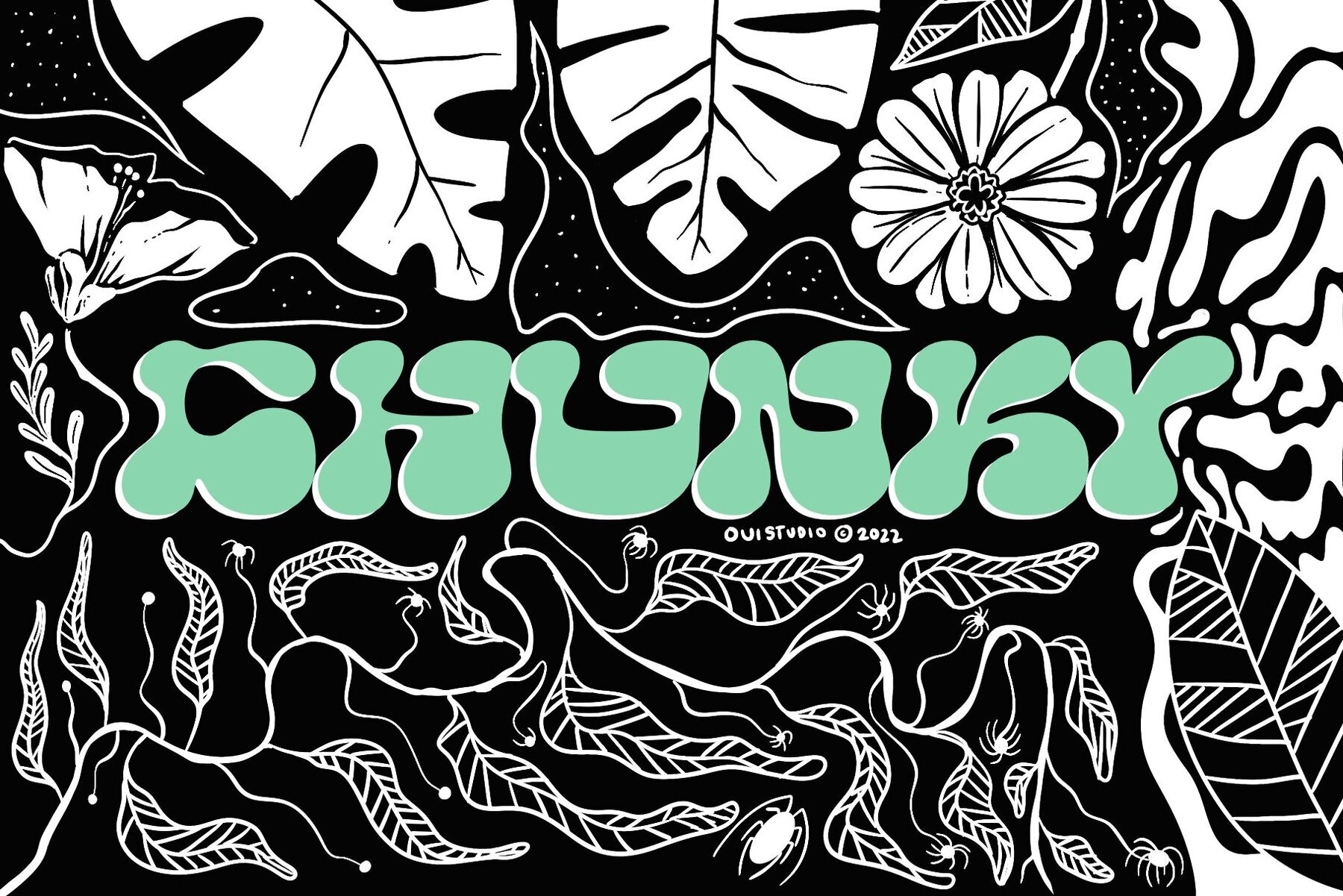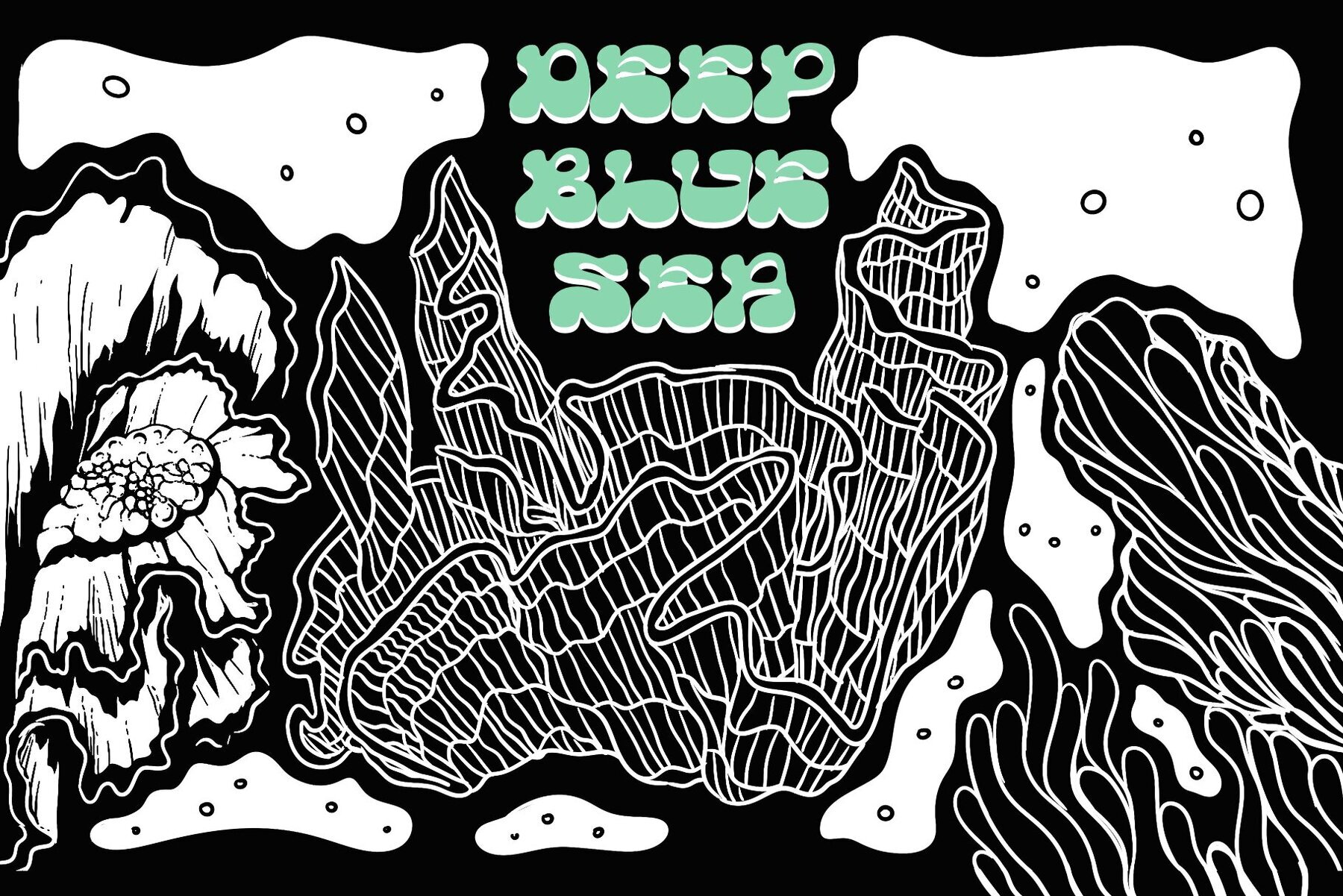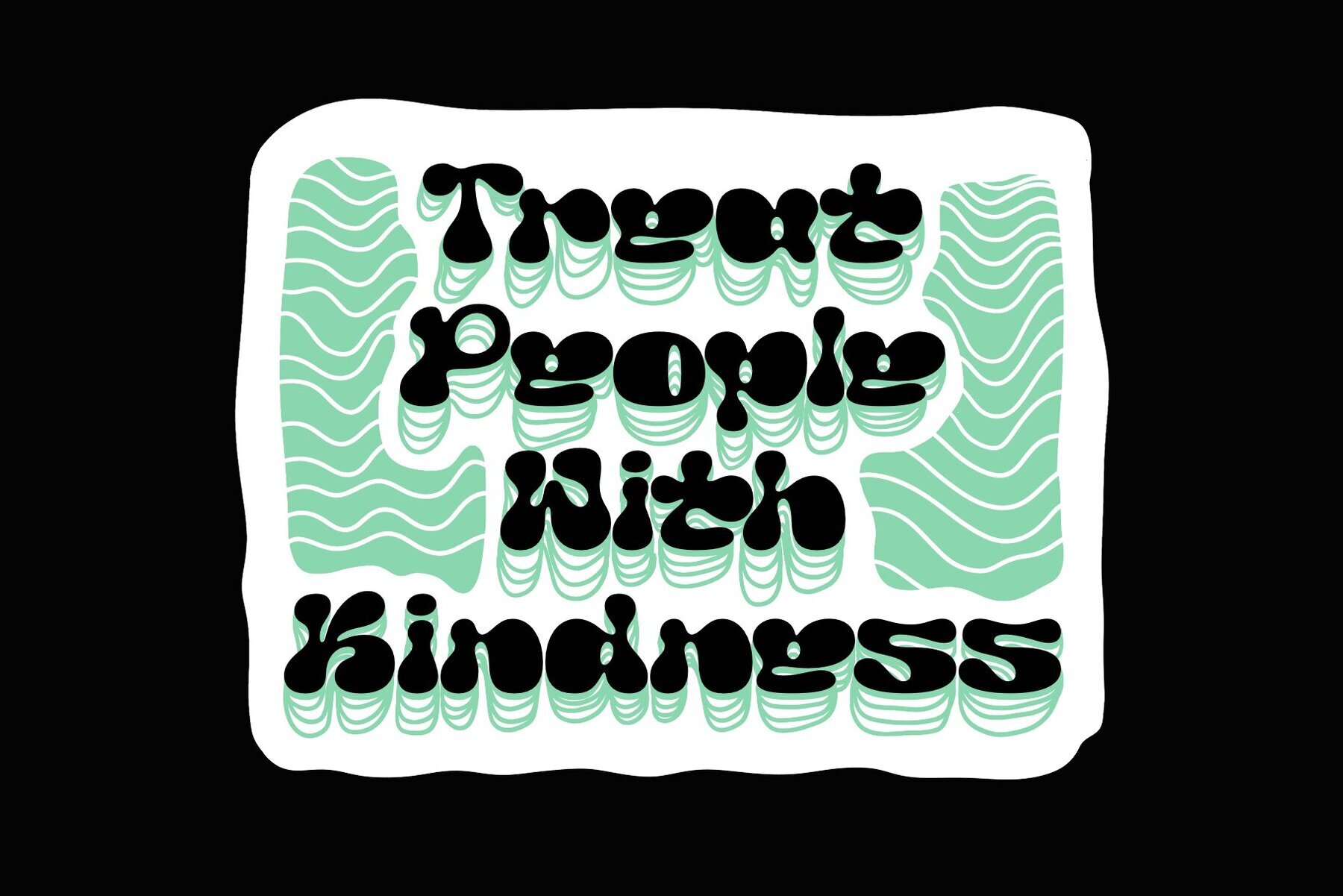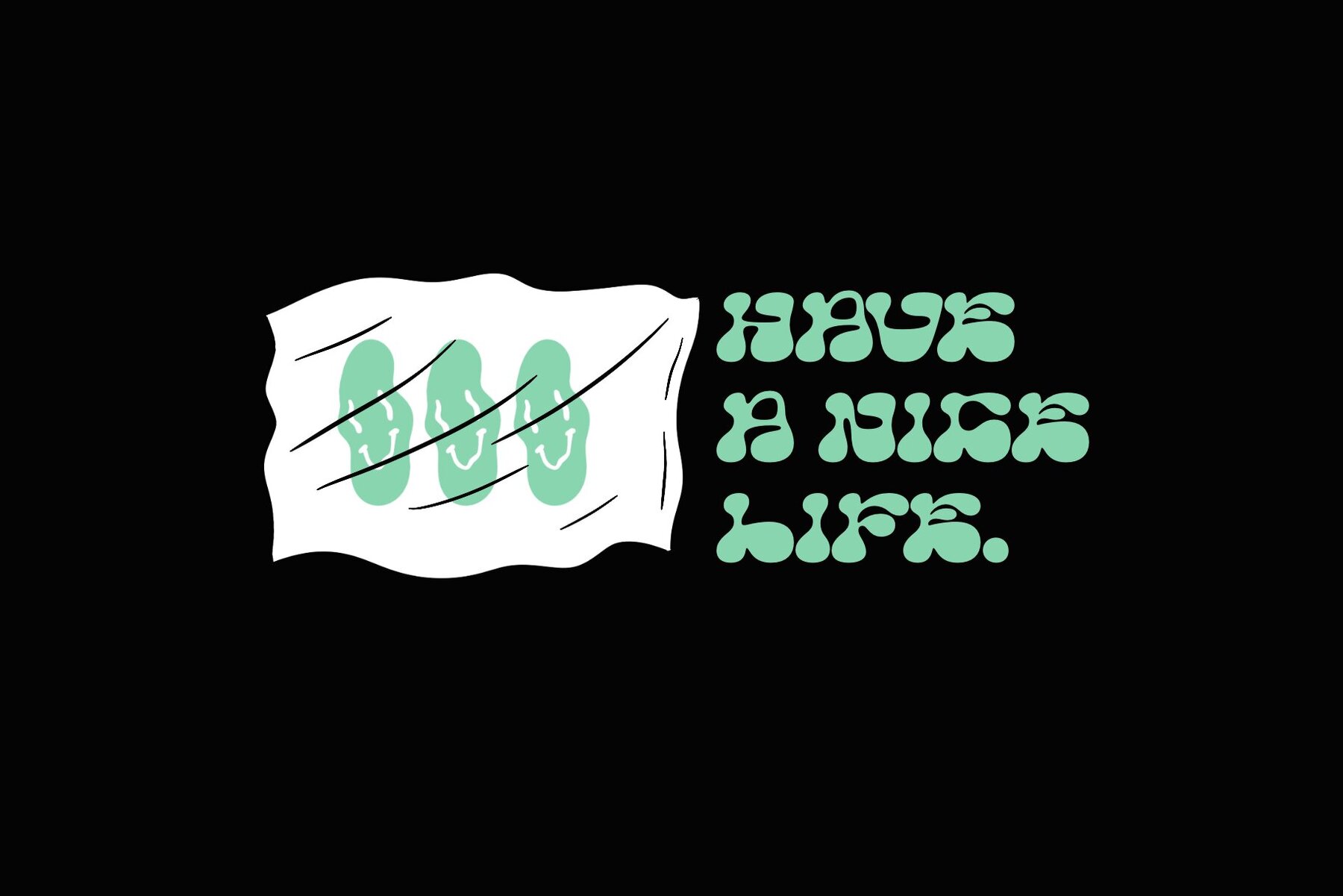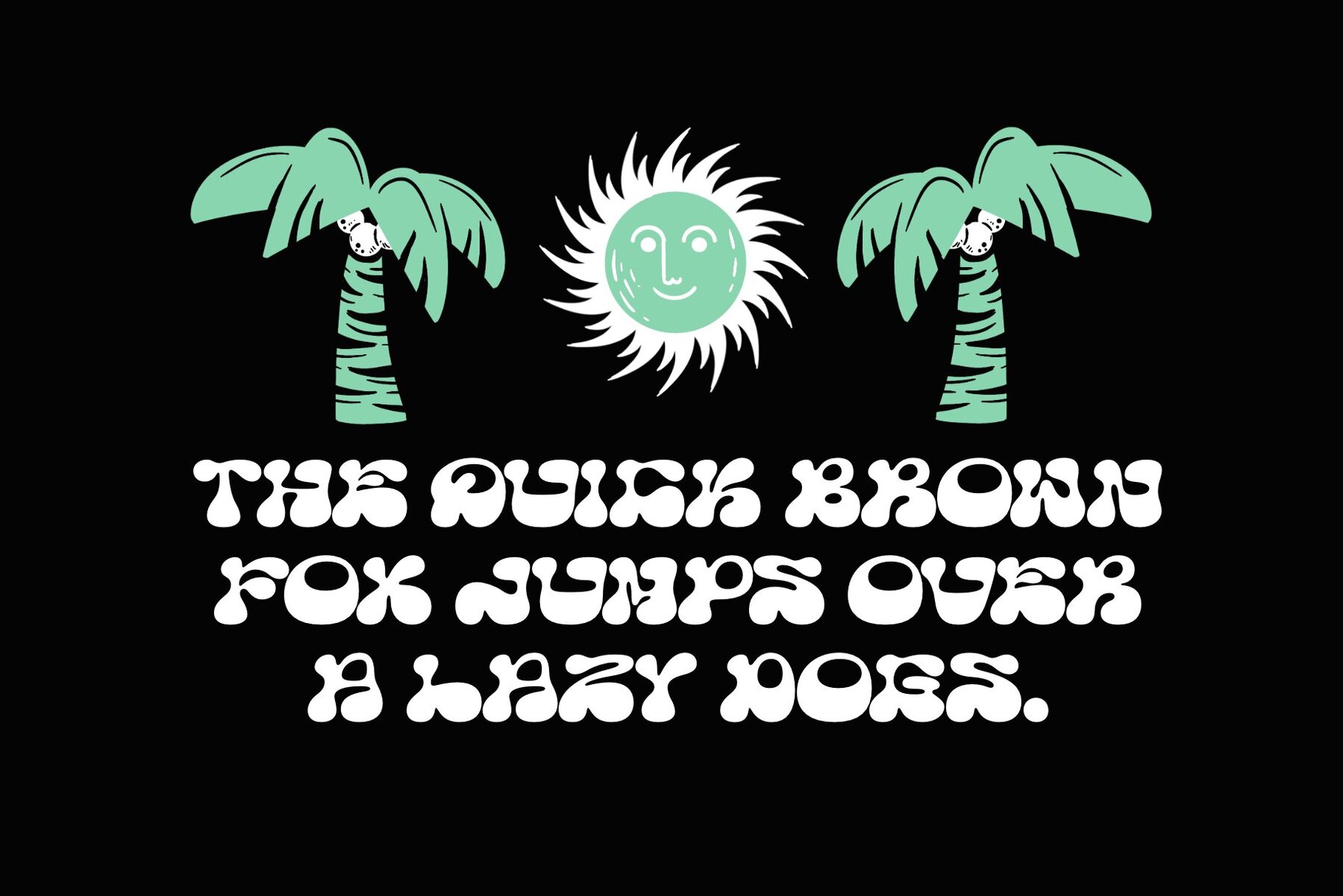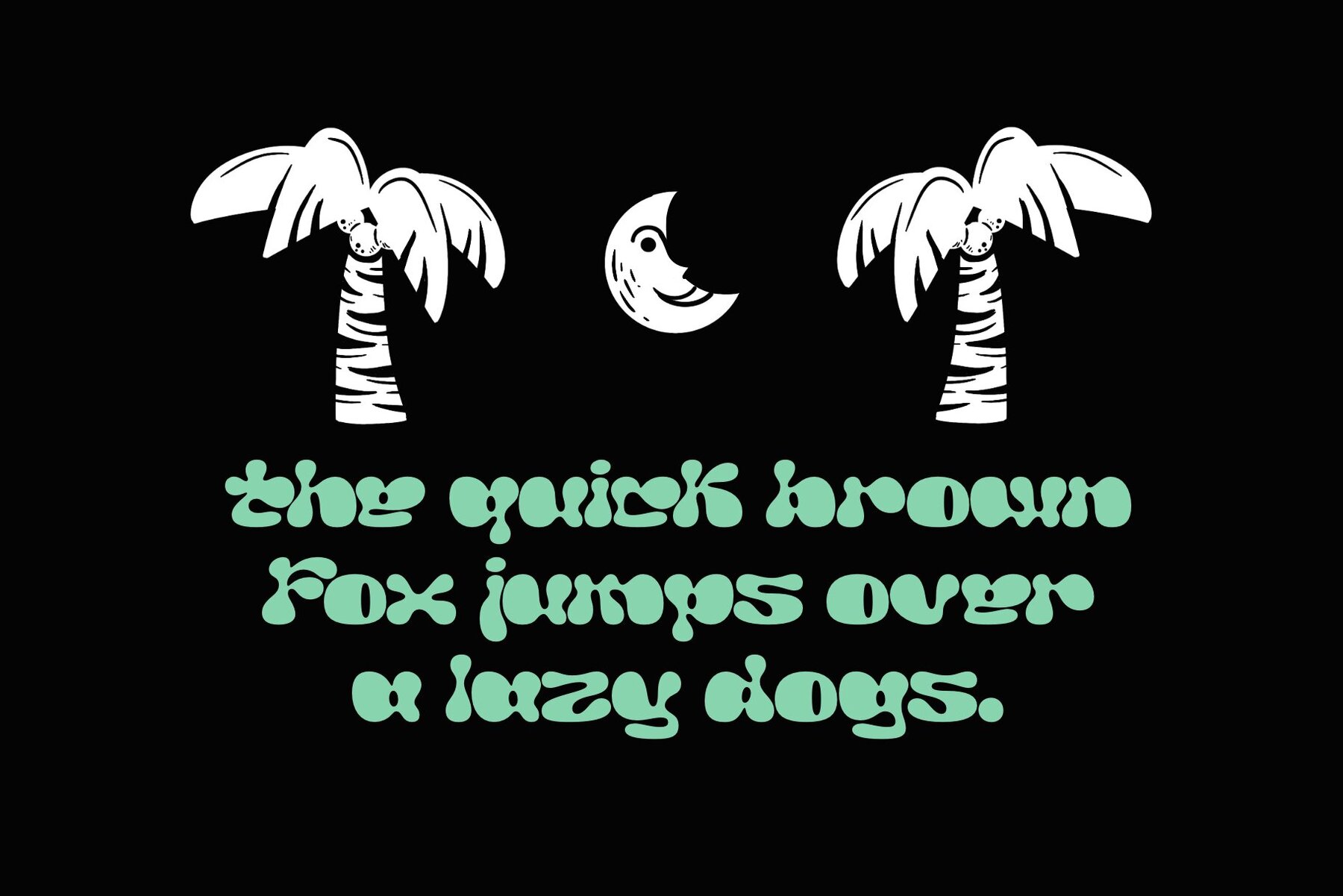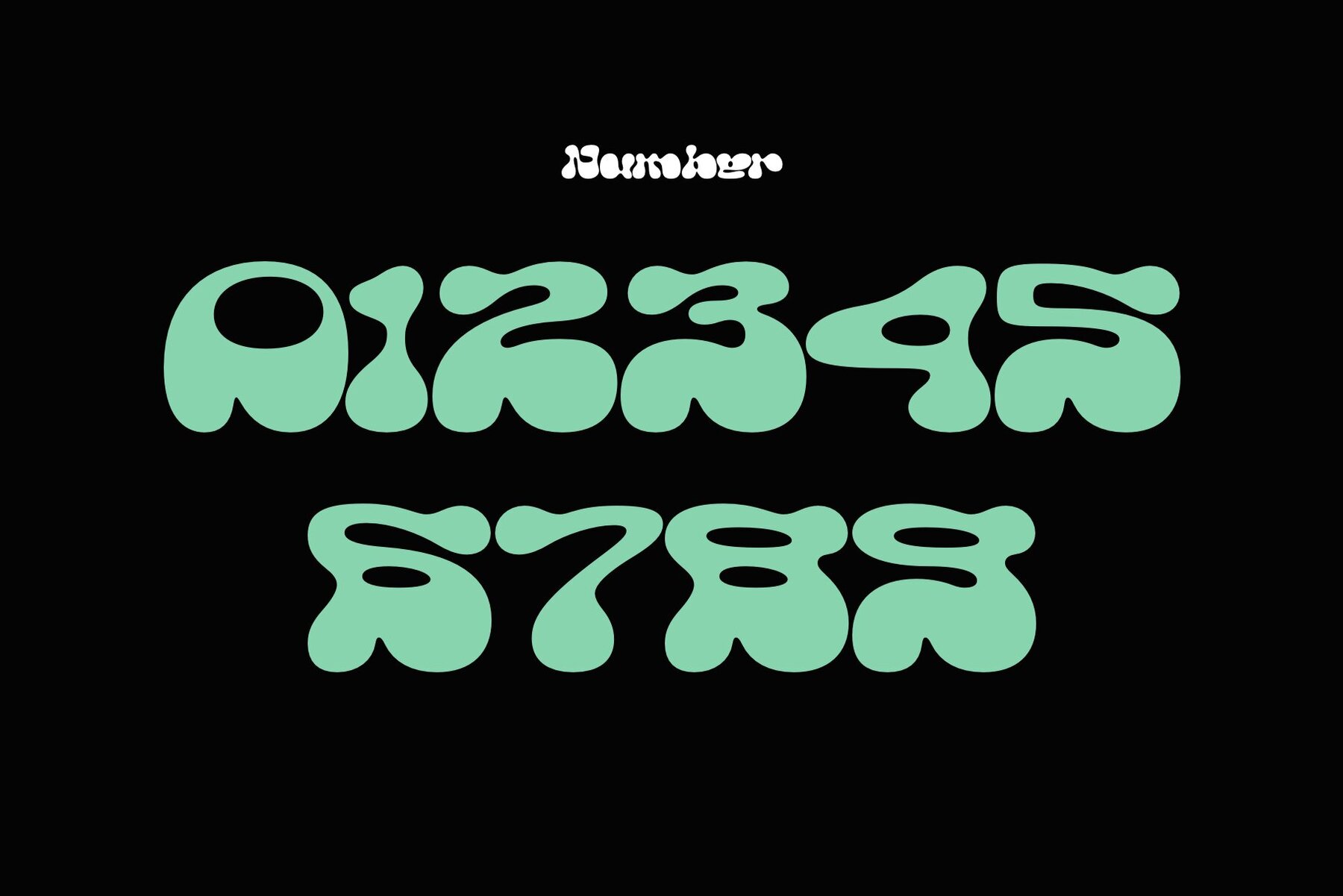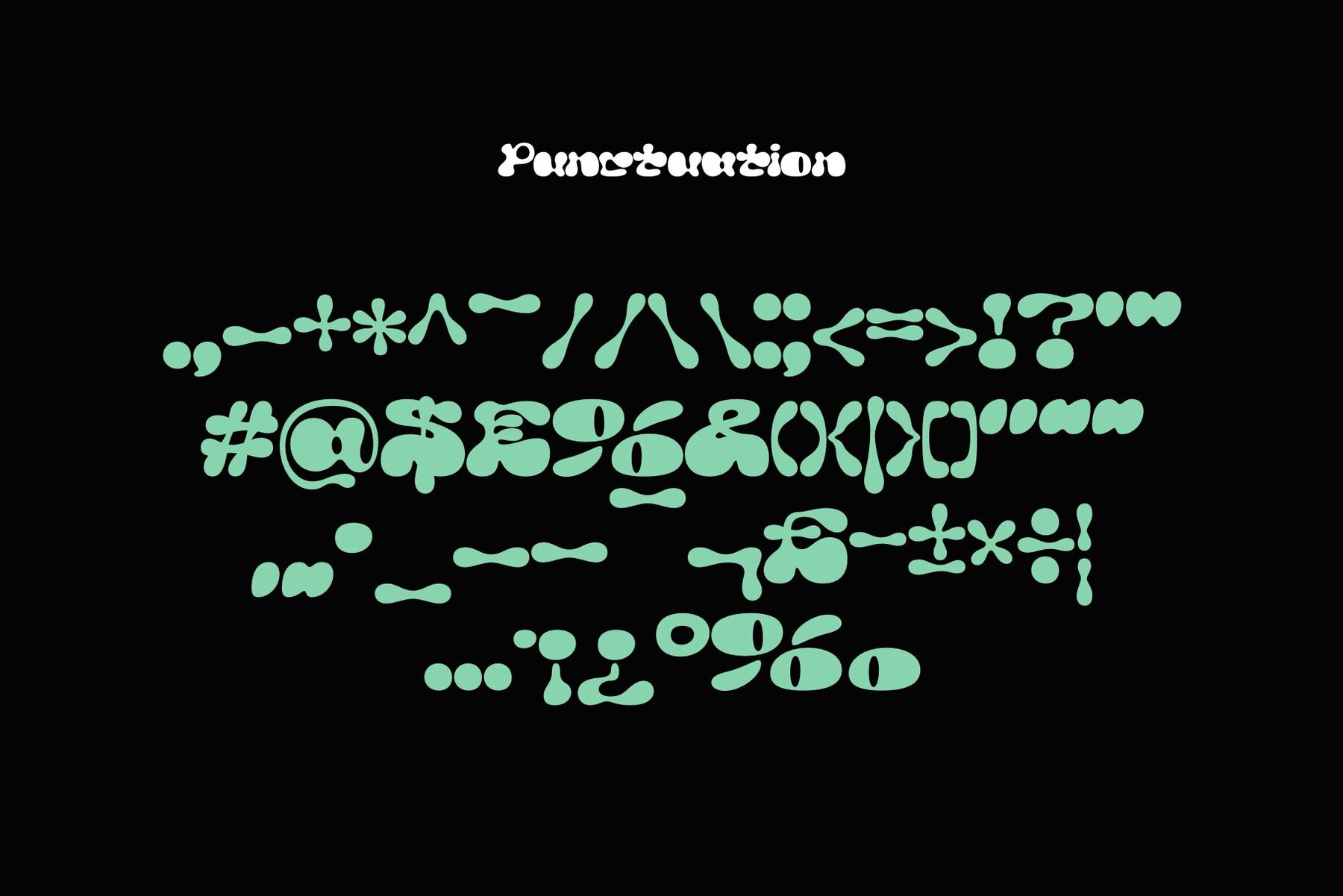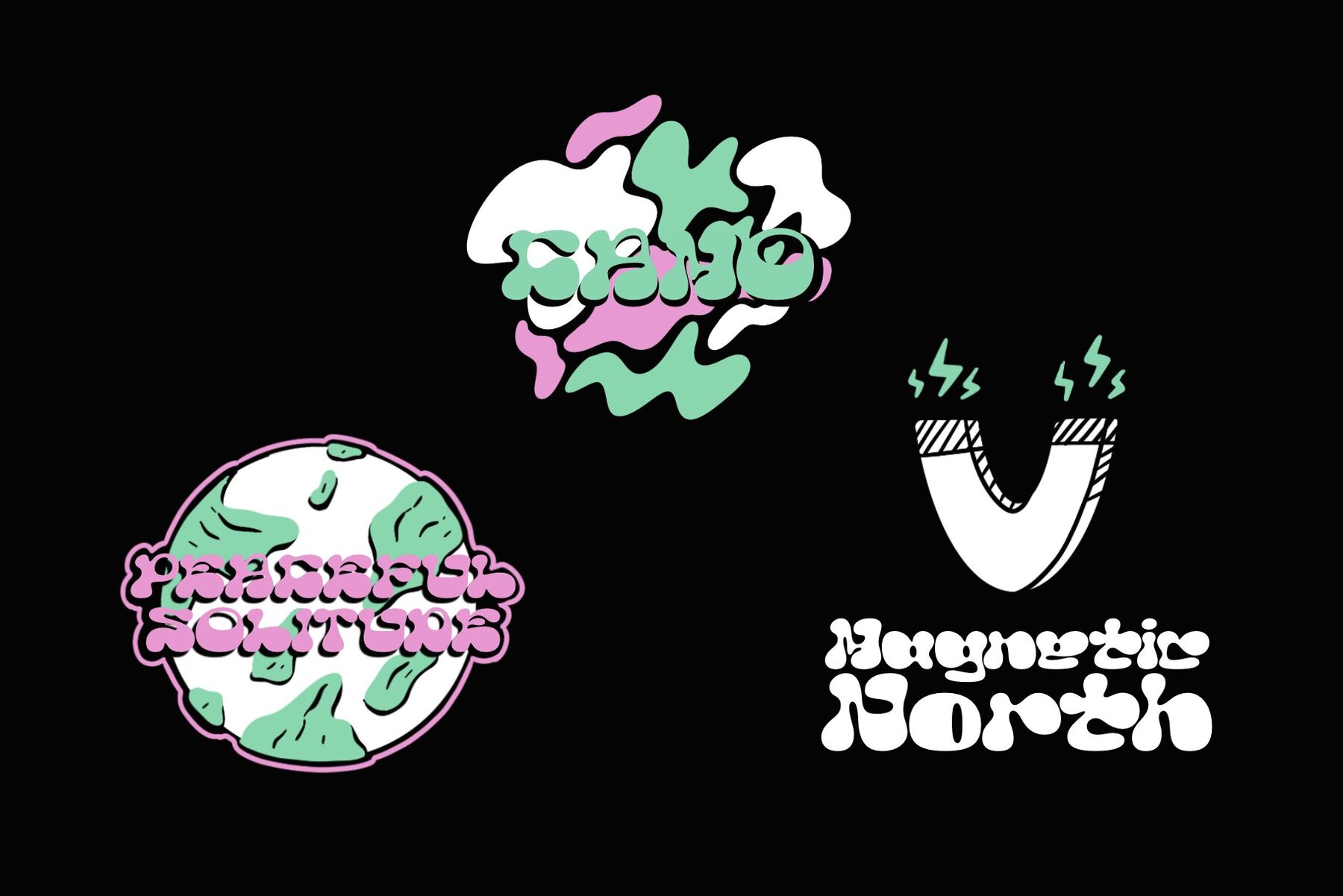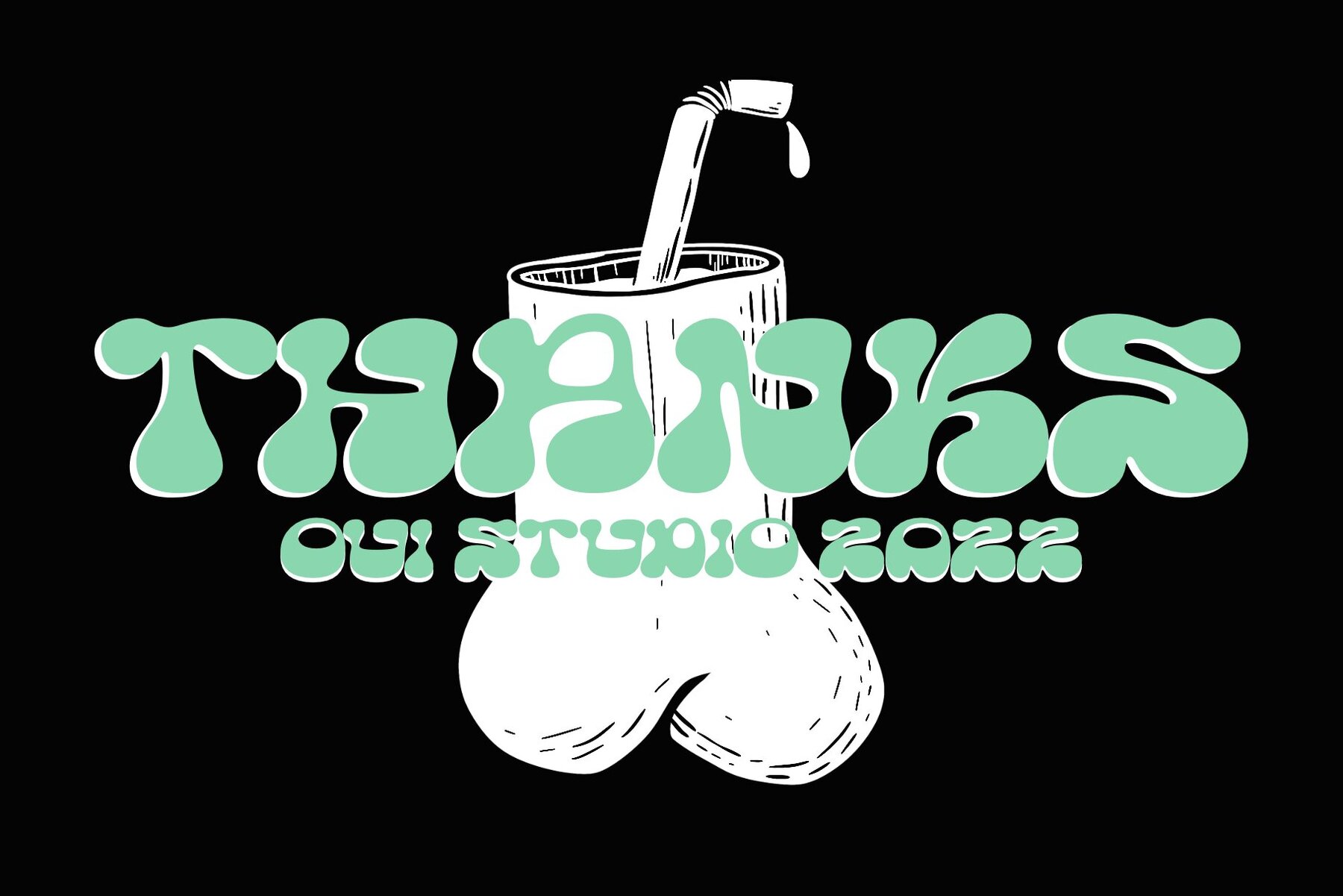
Chunky Font
Chunky Regular
Chunky is a fun, bulky font perfect for branding and designing with. The characters are all uniquely designed to have an 80's retro vibe that will make your message come across as if it were straight out of the era itself!